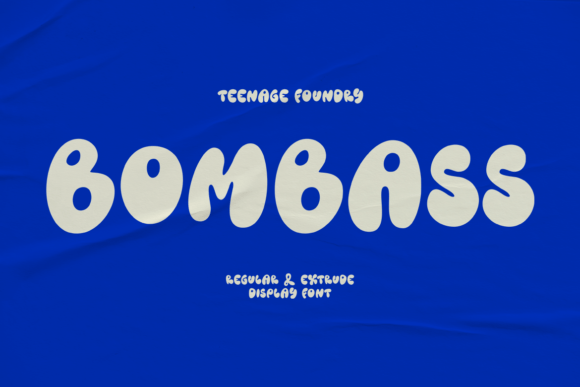
Prepare yourself for a groovy typographic journey with TF Bombass, a display font that oozes retro charm and psychedelic vibes. Picture the psychedelic posters of the 60s and 70s – TF Bombass captures that funky essence with its bold, playful strokes and unique character. This font is not just a collection of letters; it's a portal to an era of peace, love, and groovy vibes. Unleash your creativity with TF Bombass, and let your designs radiate the spirit of the groovy era. Whether you're designing posters, album covers, branding, or anything that needs a touch of retro flair, TF Bombass has got you covered. Its versatility makes it a must-have in your typographic arsenal. Experience the groovy revolution, one design at a time. Get ready to make your designs dance to the rhythm of TF Bombass!